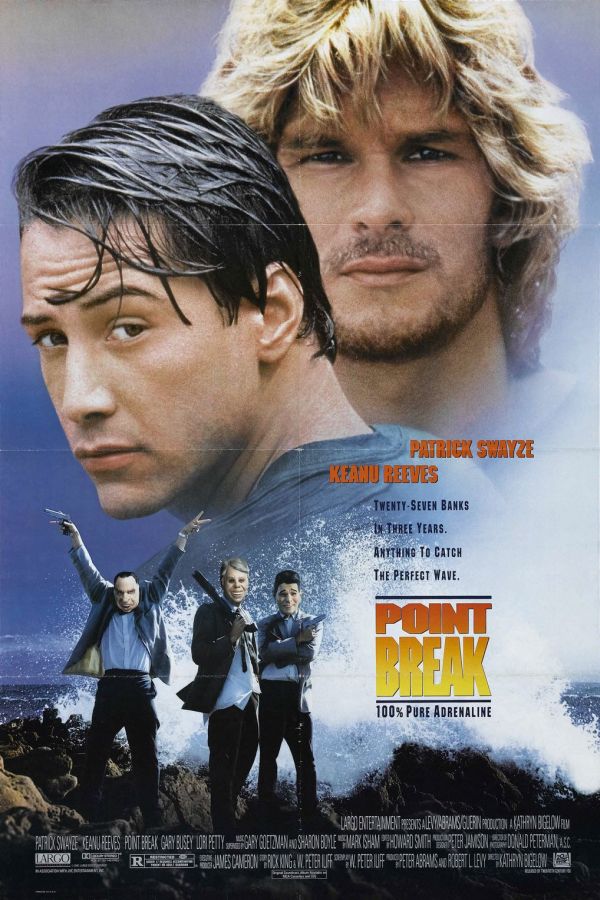
Point Break Font
ActionPoint Break is a 1991 action thriller film directed by Kathryn Bigelow and starring Patrick Swayze, Keanu Reeves, and Gary Busey. The film follows a young FBI agent named Johnny Utah who infiltrates a group of extreme sports athletes who are suspected of committing a series of high-stakes robberies.
ITC Machine, a geometric display face launched in 1970, is most likely the font used for the Point Break title in the poster. Its strong, geometric design makes it perfect for T-shirts, advertising, packaging, and other commercial uses including signs and newsletter headlines. View more details about it here.